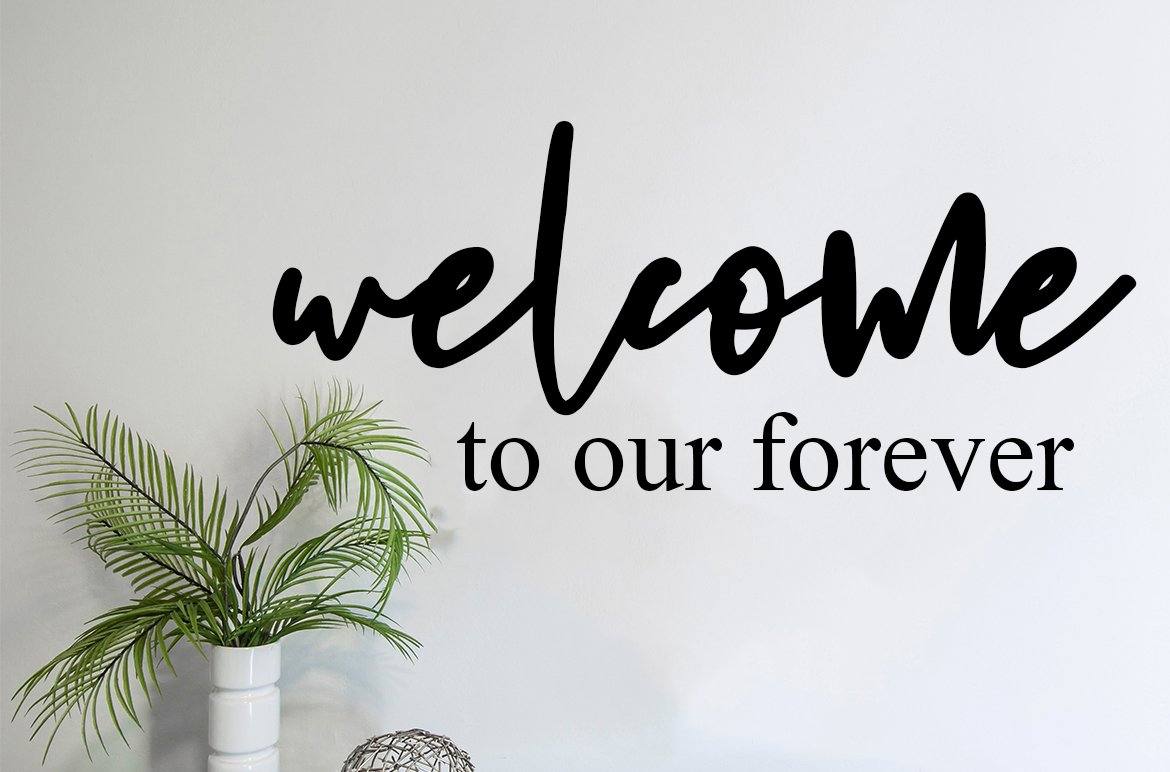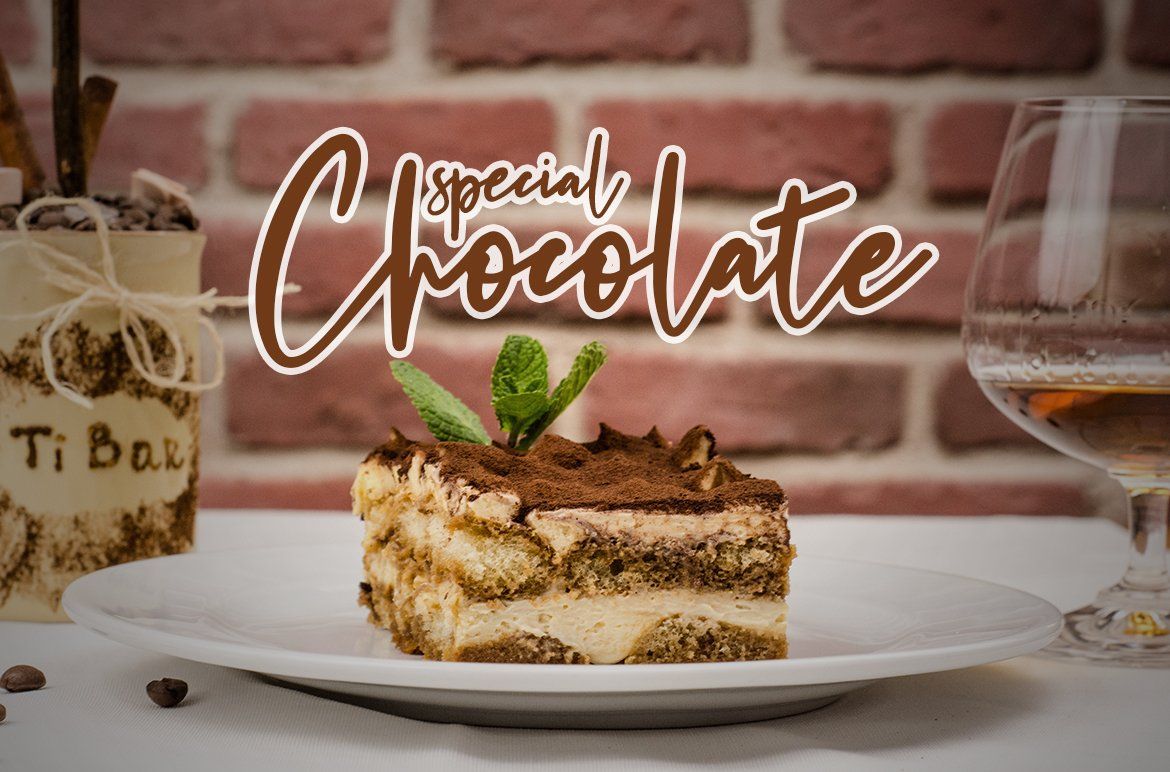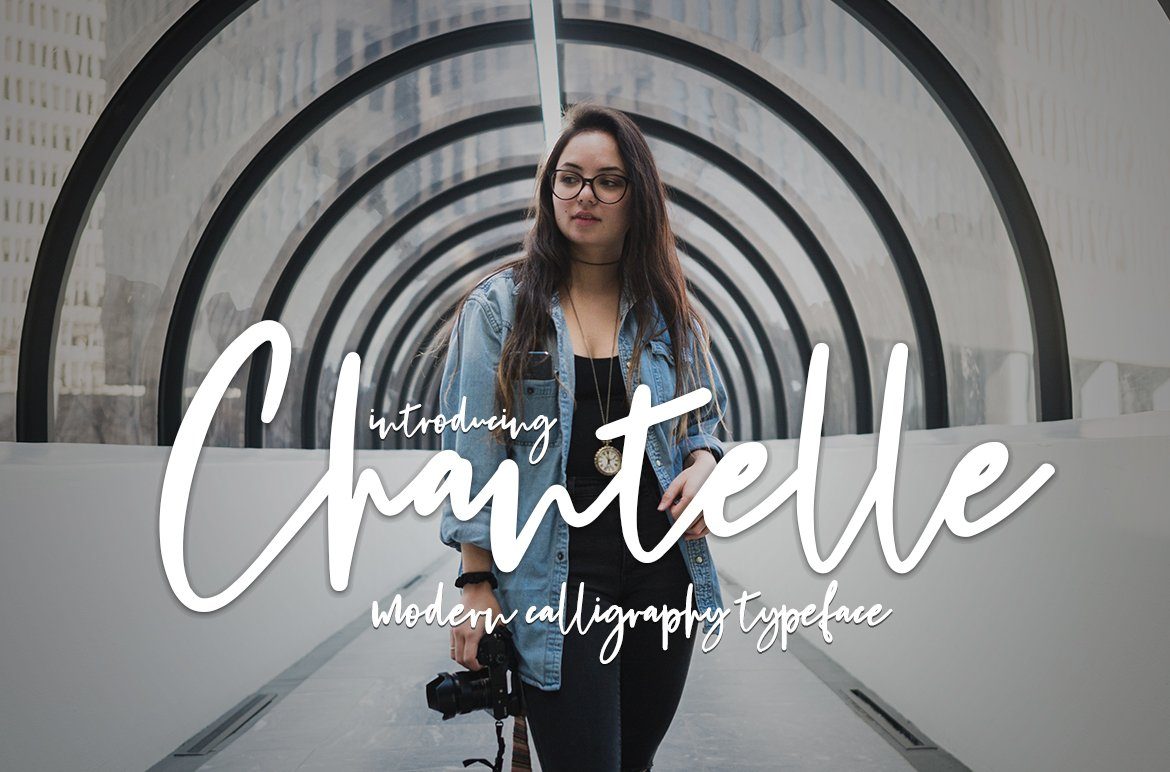
About Chantelle
Chantelle is a stunning handwritten font that updates classic calligraphy with a contemporary twist. Fall in love with its bold charm! Chantelle is equipped with the OpenType feature and has many glyphs. and of course having a lot of glyphs will be able to choose letters to your liking, lots of variations and choices for each letter, so you can customize your design choices and also support other languages. what you will get in this package: Chantelle regular TTF Chantelle regular OTF to use a variety of flying machines, you need a program that supports OpenType features such as Adobe Photoshop CS / Adobe Photoshop CC, Adobe Illustrator CS / Adobe Illustrator CC, Adobe Indesign and Corel Draw and many more programs that support OpenType. If you don’t have a program that supports OpenType, you can access all the alternate glyphs using Font Book (Mac) or Character Map (Windows). —